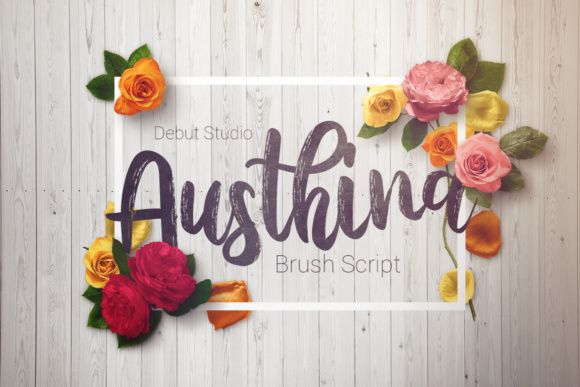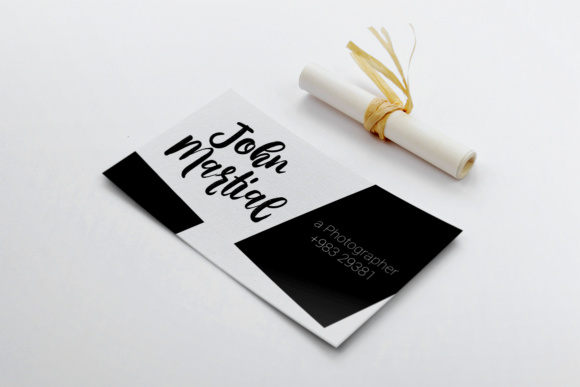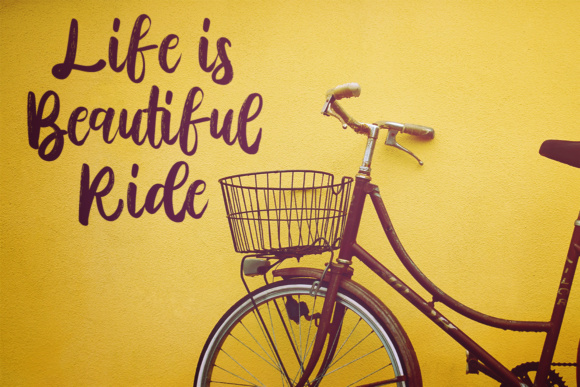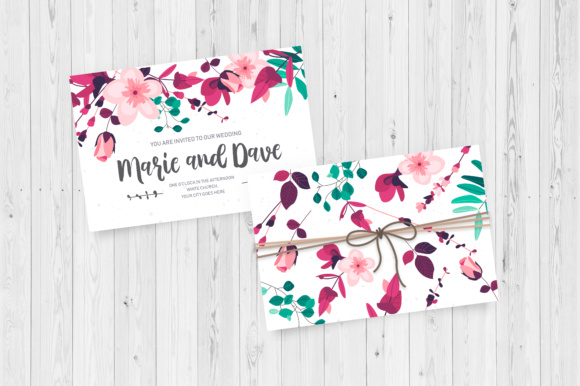
Austhina Font
About Austhina Font
Austhina is a beautiful brush script. Austhina comes in 2 different styles which allows you to create the perfect look for your design.